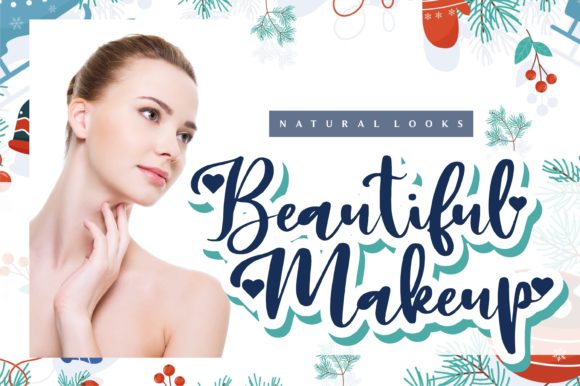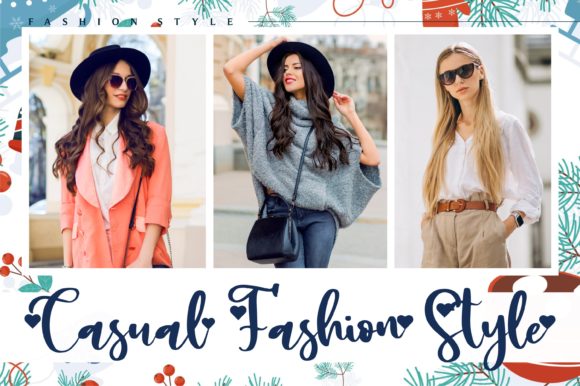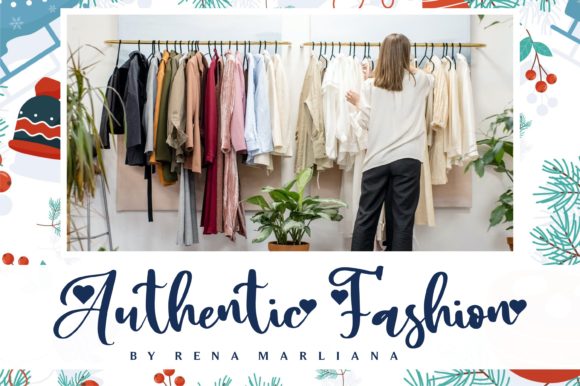
About Christmas Story Font
Christmas Story is a romantic and rich handwritten font. It is PUA encoded which means you can access all of the glyphs and swashes with ease! Incredibly versatile, this font fits a wide pool of festive designs, elevating them to the highest levels.